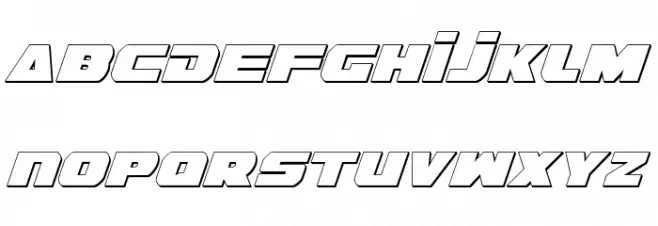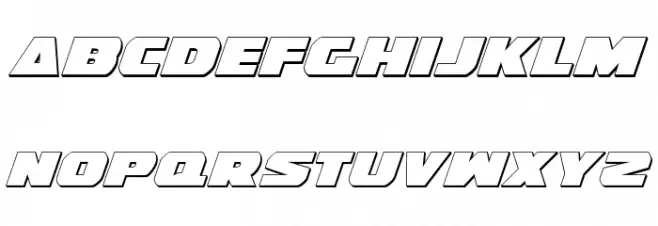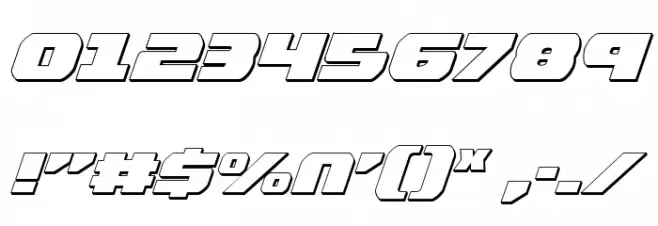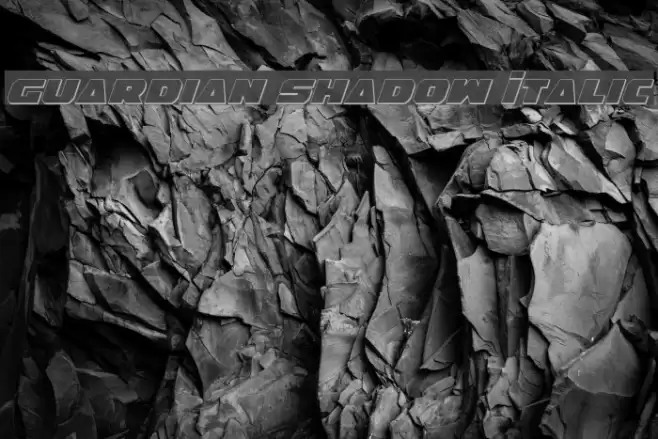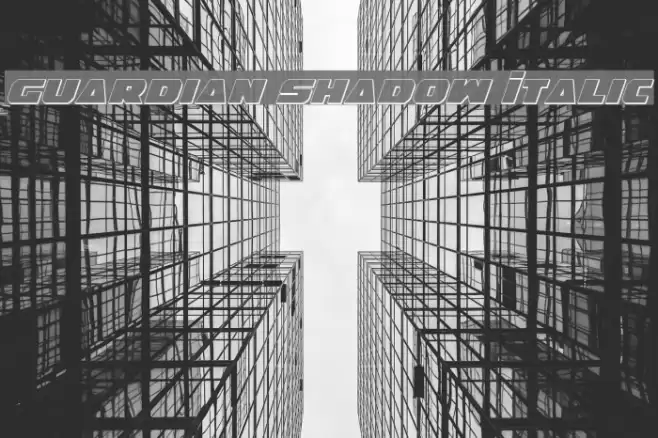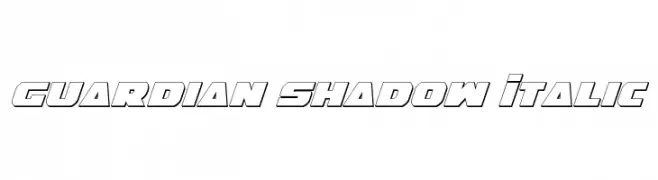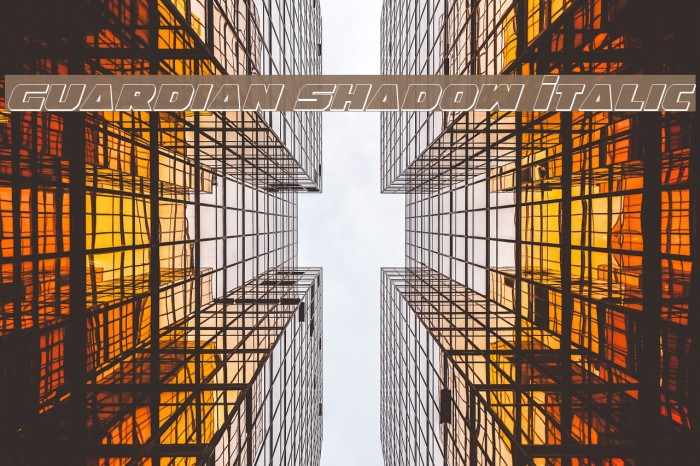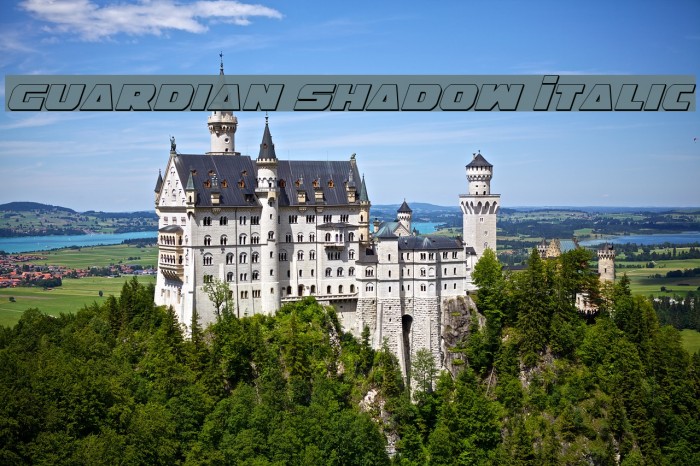
Guardian Shadow Italic
This font features a bold, geometric design with a distinct shadow effect that gives it a three-dimensional appearance. The characters are uppercase and have a strong, angular structure, making them highly legible and impactful. The italic style adds a dynamic and forward-moving feel, enhancing its modern and futuristic aesthetic. The numbers and special characters maintain the same bold and shadowed style, ensuring consistency across all elements. This font is ideal for projects that require a strong visual presence and a touch of modernity.
Bold, geometric font with a shadow effect and italic style.
- Proposed Projects: Ideal for branding, posters, video game graphics, and futuristic-themed designs.